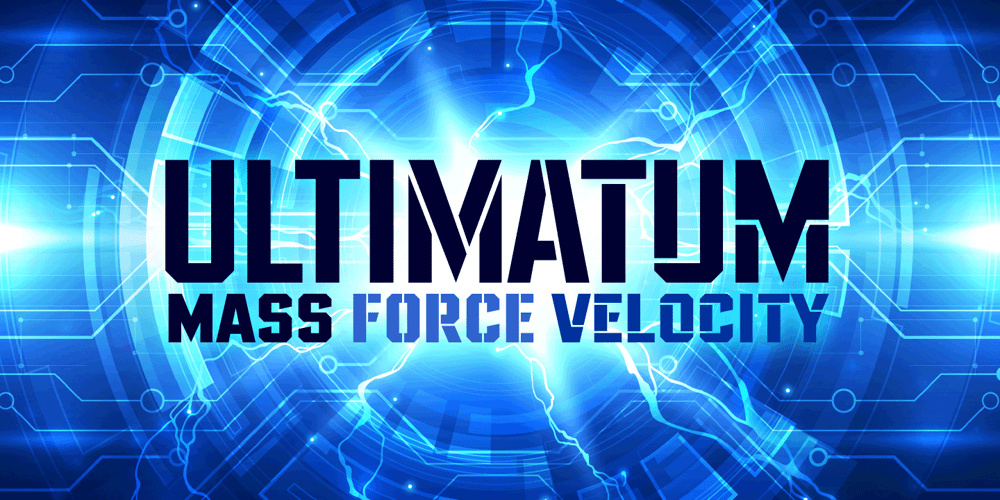
Ultimatum MFV Font Family was designed by John Roshell and published by Comicraft. Ultimatum MFV contains 27 styles and family package options. ALERT: Comicraft’s Mad Font Scientist John Roshell and Lead Lab Assistant Drewes McFarling have applied an Unstoppable Force to our Immovable Font ULTIMATUM, successfully splitting it into a family of three fonts! Here’s the secret formula: MASS retains the dynamic details of the original with flat, angled corners; FORCE cooperates with your demands for a vertical slice of the action; and VELOCITY was tired of waiting for a compromise and cut right across its horizontals.